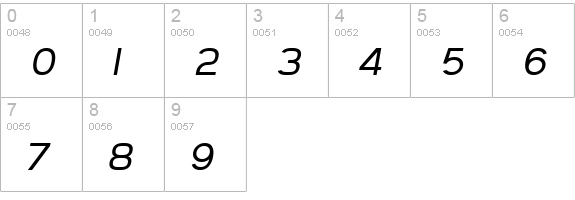
SF Arborcrest Medium Oblique Font Details
SF Arborcrest Medium Oblique is a balanced, medium-weight, italic variant in the SF typeface family \xE2\x80\x94 well suited to sub-headlines, navigation, and balanced editorial work.
SF Arborcrest Medium Oblique font is a modern and stylish typeface that is perfect for adding a touch of elegance and sophistication to any design project. With its sleek and slanted letterforms, this font exudes a sense of movement and dynamism. The medium weight of the font strikes a perfect balance between being bold and legible, making it versatile for a wide range of applications. The oblique style of SF Arborcrest Medium adds a unique twist to the traditional medium font, making it stand out and catch the eye. Whether you're designing a logo, creating a poster, or crafting a website, this font will bring a sense of professionalism and creativity to your work. One of the greatest advantages of SF Arborcrest Medium Oblique font is that it is freely available to download at FontsMarket.com. This means that you can enjoy the benefits of this stunning font without any financial burden. So, whether you're a professional designer or a hobbyist, you can take advantage of this font and elevate your designs to the next level. SF Arborcrest Medium Oblique font is designed with precision and attention to detail, ensuring that each character is perfectly balanced and visually appealing. The smooth curves and clean lines of the letterforms make this font highly legible, even at smaller sizes. In addition to its aesthetic appeal, SF Arborcrest Medium Oblique font also offers excellent readability. Whether used in body text or headlines, this font ensures that your message is clear and easy to read. The oblique style adds a touch of visual interest, without sacrificing readability. Overall, SF Arborcrest Medium Oblique font is a versatile and stylish typeface that will enhance any design project. Its sleek and modern design, combined with its excellent legibility, makes it a great choice for a wide range of applications. And the best part? You can download it for free at FontsMarket.com, making it accessible to everyone. So why wait? Add SF Arborcrest Medium Oblique font to your design toolkit today and let your creativity soar.